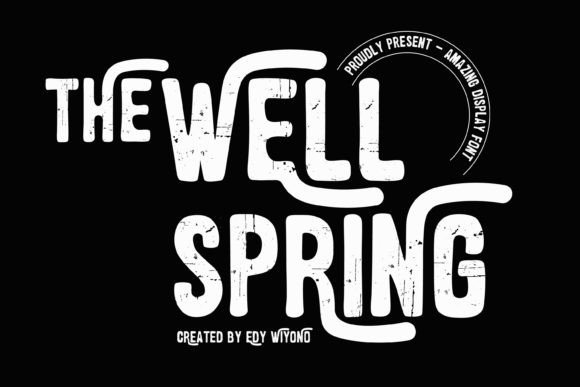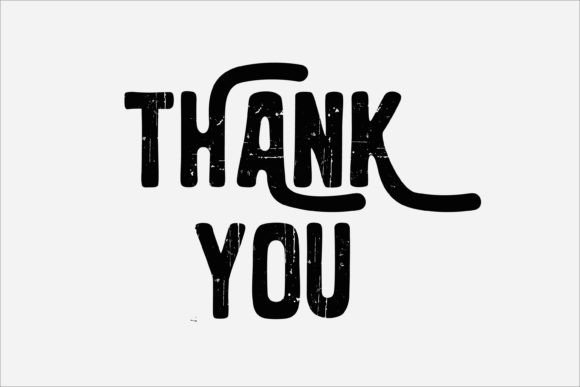
The Wellspring Font
The Wellspring is a display font with a distressed effect, this font is suitable for all kinds of themes, both for children and adult themes. It is perfect for movie titles, book covers and craft designs. No matter the topic, this font will be an incredible asset to your fonts’ library, as it has the potential to elevate any creation.